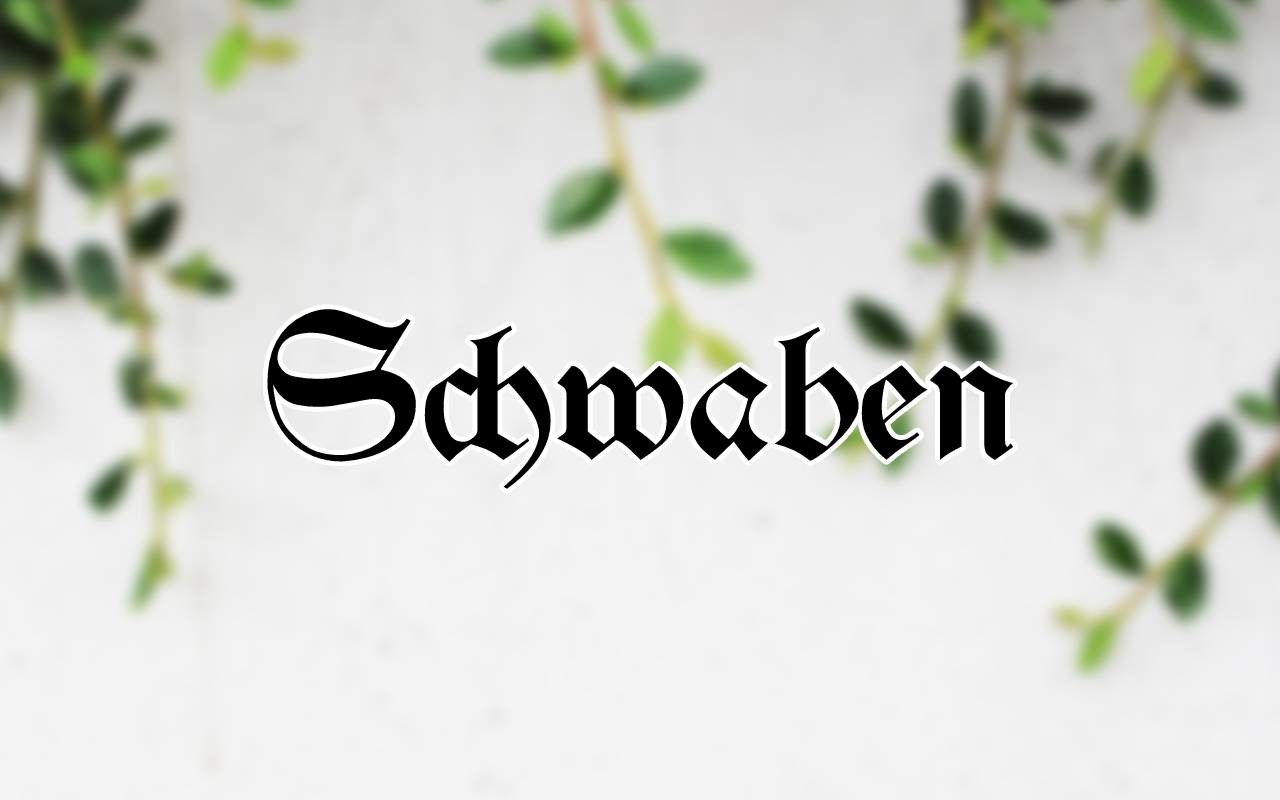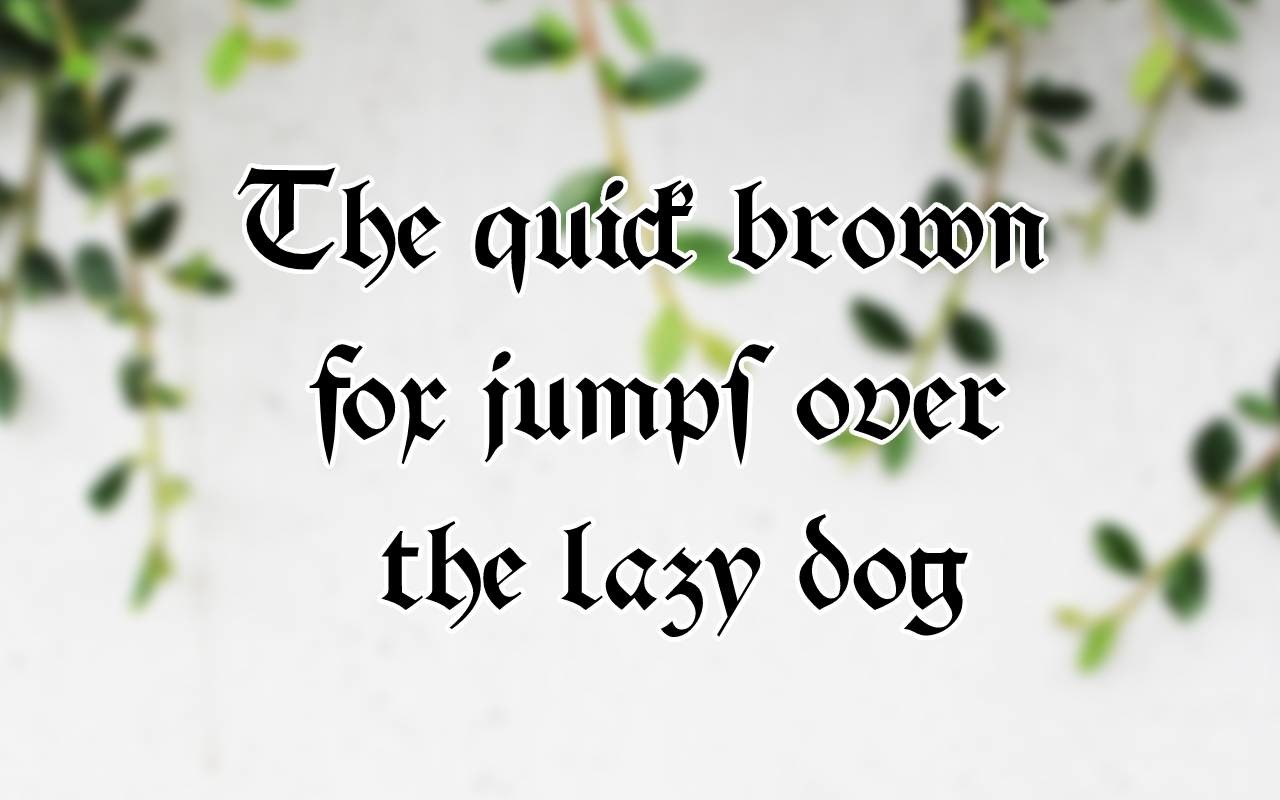
Schwaben Font
About Schwaben Font
Schwaben is an impressive blackletter font featuring characters that seem to come from vintage and exquisite times. Use this unique typeface to take your creations out of the ordinary!